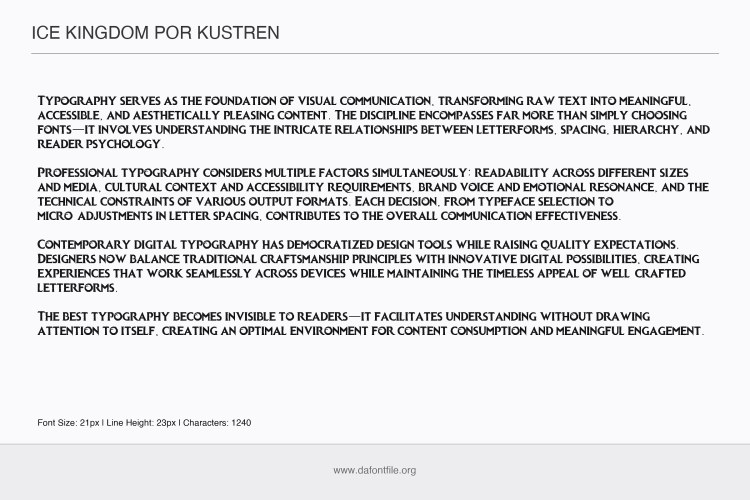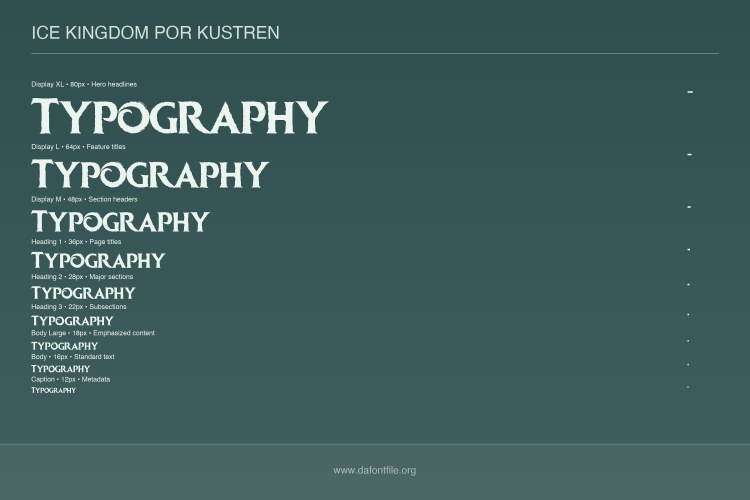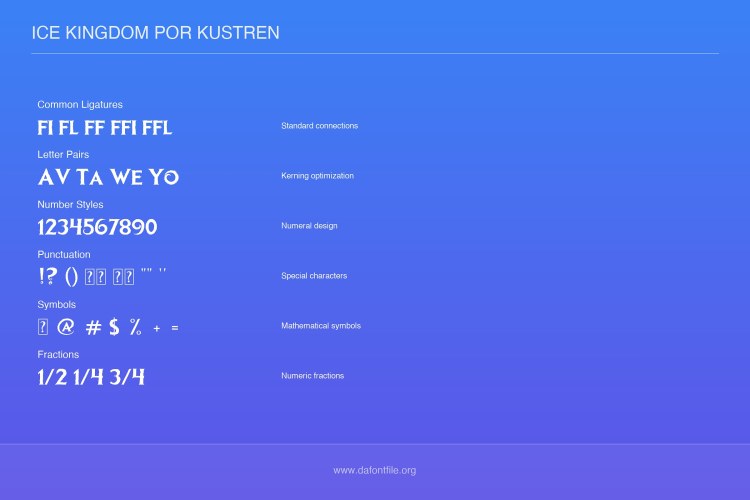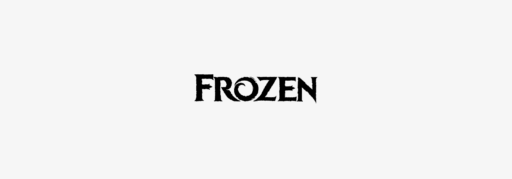
Frozen Font
Frozen Font brings the magic of Disney’s Frozen movie to your designs. Its icy, decorative style adds a touch of fantasy and wonder to posters, invitations, and kids’ projects. Designers use this font to create artwork that feels magical, cheerful, and full of winter charm.
Frozen Font is a Display Fonts font that brings a professional and versatile look to your projects. Frozen Font brings the magic of Disney’s Frozen movie to your designs.